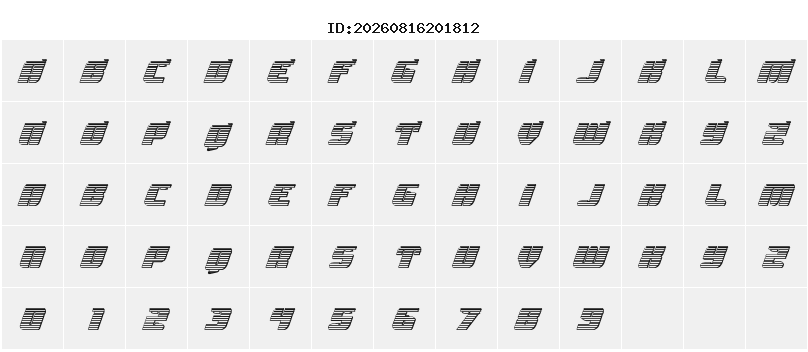
Spartaco Chrome Preview
• Font Name: Spartaco Chrome
• Full Font Name: Spartaco Chrome
About Spartaco Chrome.ttf
Spartaco Chrome.ttf is a modern, elegant sans-serif font designed for ultimate readability and visual harmony. Perfect for branding, headlines, web design, and print materials.